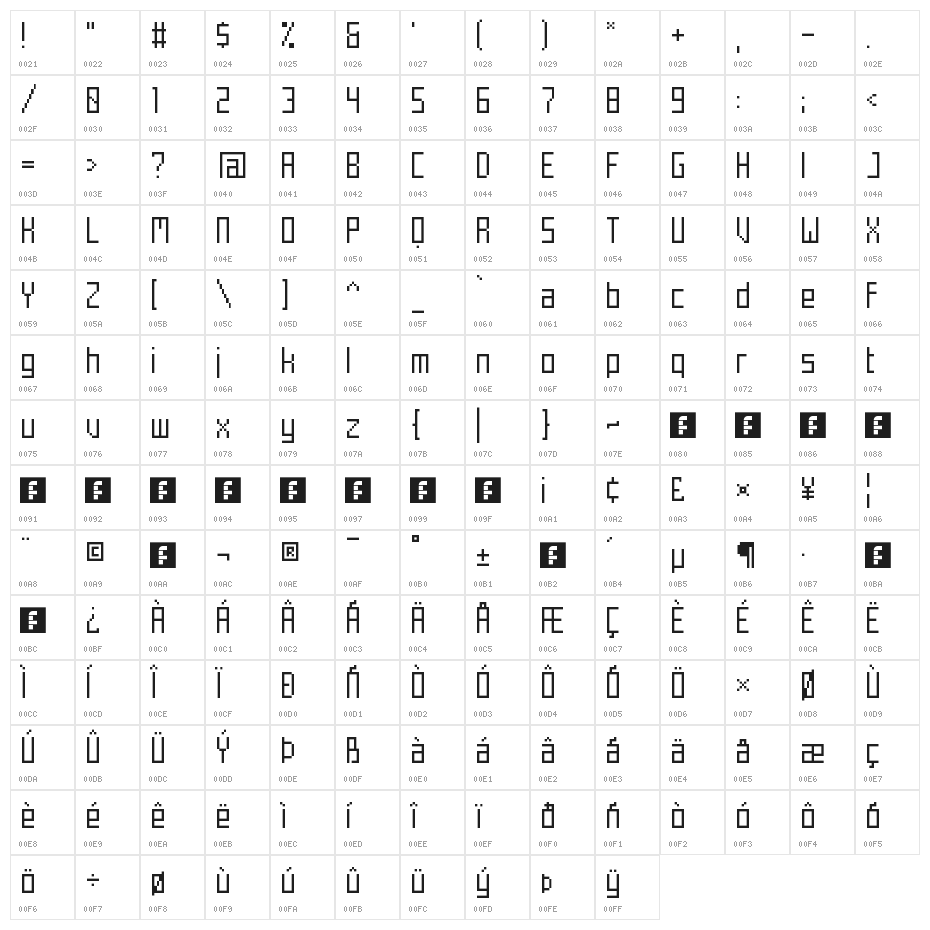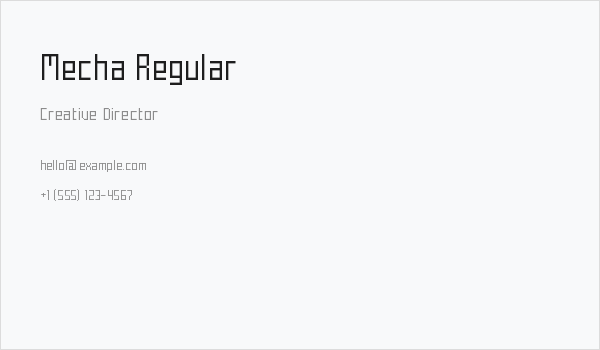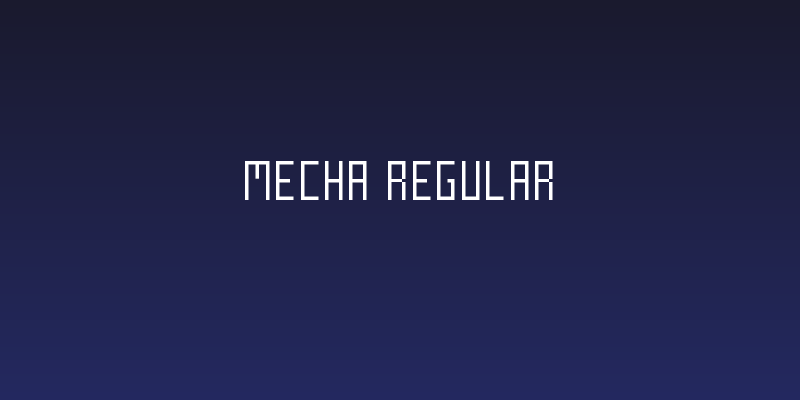
Mecha Regular Font
Mecha Regular Description
This font features a geometric and futuristic design, characterized by its blocky and angular letterforms. The uppercase and lowercase letters maintain a consistent height, creating a uniform appearance. The digits and special characters are designed with the same angular style, ensuring a cohesive look across all characters. The font's structure is reminiscent of digital or mechanical displays, making it ideal for projects that require a modern and technological aesthetic. Its clean lines and sharp edges contribute to its distinct and recognizable appearance.
| Use Case | Headlines, Logos, Digital displays |
| Proposed Projects | Ideal for technology-themed designs, video game interfaces, sci-fi posters, and digital displays. |